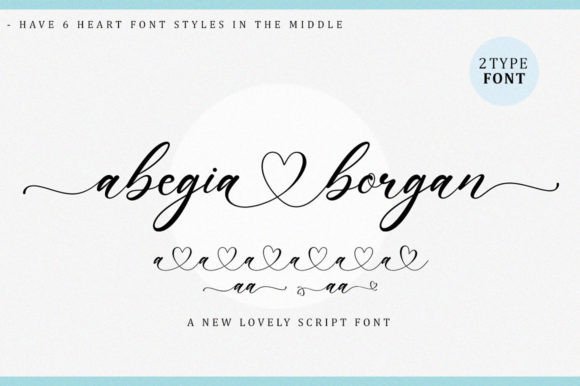
Encounter Abegia Borgan, an Exquisite Script Font to Elevate Your Designs.
Step into a realm of charm and elegance with Abegia Borgan, a captivating script font designed to infuse a touch of romance into your creative projects. Its sweeping curves and intricate details mimic the beauty of calligraphy, inviting your audience to embark on a journey of timeless allure.
A Love-Inspired Vision:
Crafted with love as its guiding principle, Abegia Borgan exudes an enchanting aura, making it the perfect choice for wedding invitations, branding, and any project seeking a romantic touch. Allow your designs to blossom with love and captivate hearts with every stroke of this exquisite font.
Versatility for Every Occasion:
While deeply rooted in romance, Abegia Borgan's versatility extends far beyond wedding-themed designs. Its elegance shines in logos, labels, packaging designs, and blog titles, adding a touch of sophistication to any visual communication. Let Abegia Borgan elevate your branding efforts and make your designs stand out from the crowd.
A Symphony of Creativity:
Whether you're creating posters, social media posts, or Instagram designs, Abegia Borgan serves as your artistic partner, helping you weave a tapestry of visual enchantment. Its delicate strokes add a touch of charm to social media posts, while its graceful curves lend an air of sophistication to posters and marketing materials.
A Story in Every Letter:
With Abegia Borgan, each letter tells a story, inviting your audience to delve into a world of imagination and emotion. Its intricate details and expressive glyphs create a unique narrative, captivating viewers with every glance. Let your designs speak volumes and leave a lasting impression on those who encounter them.